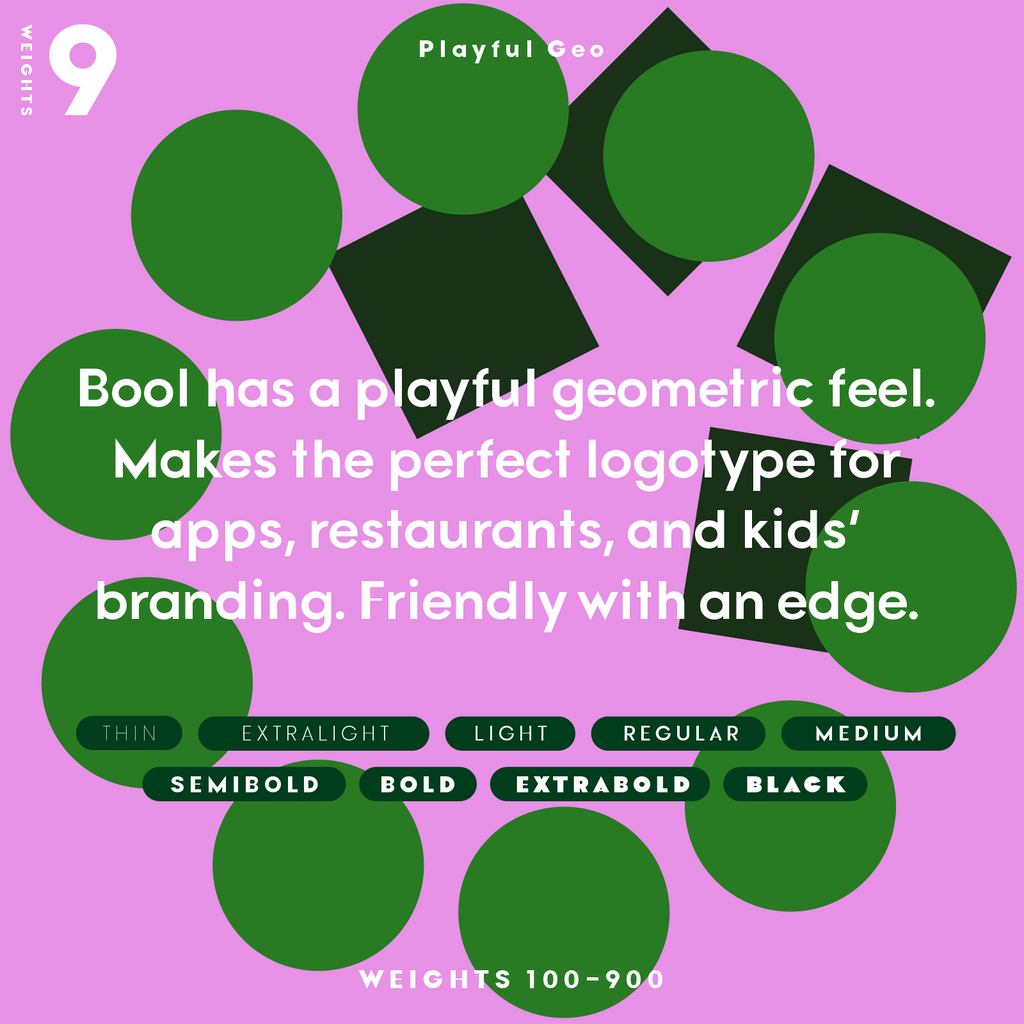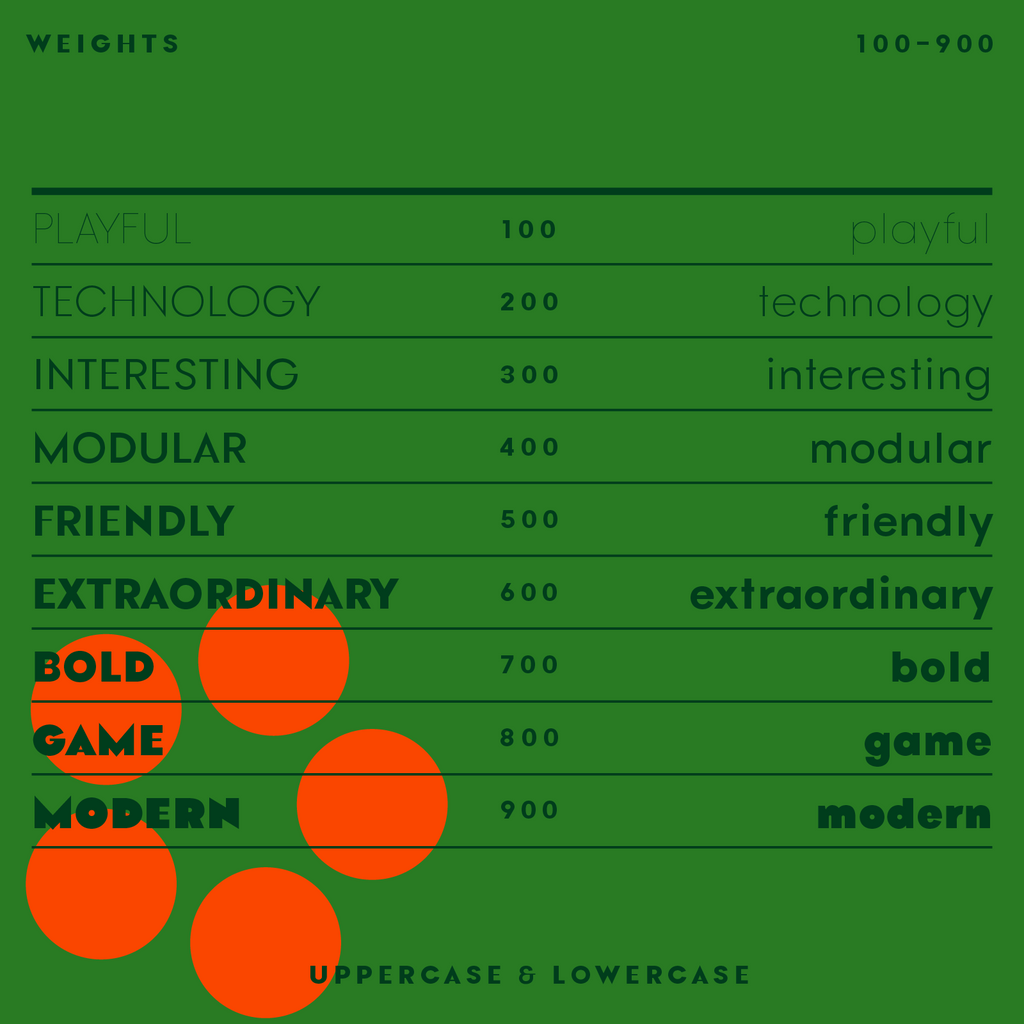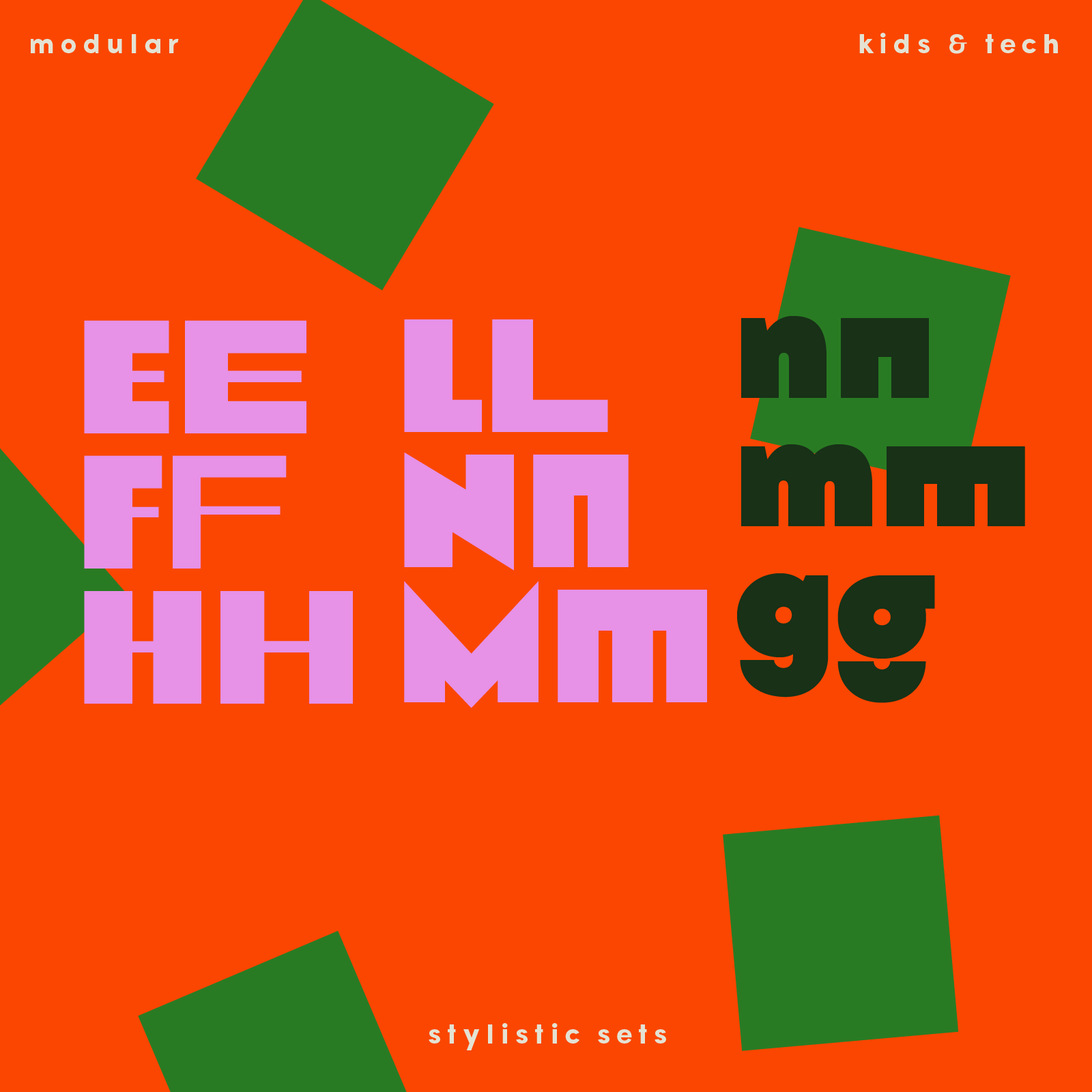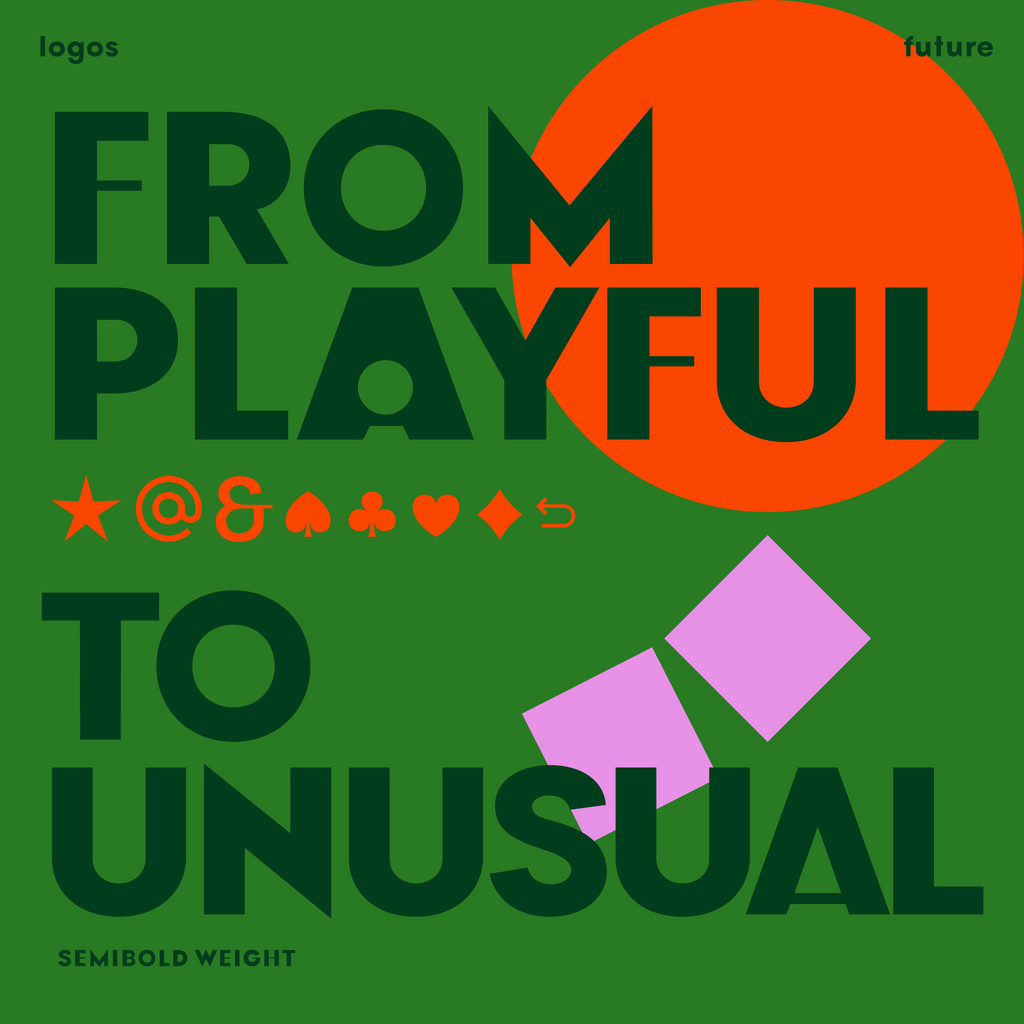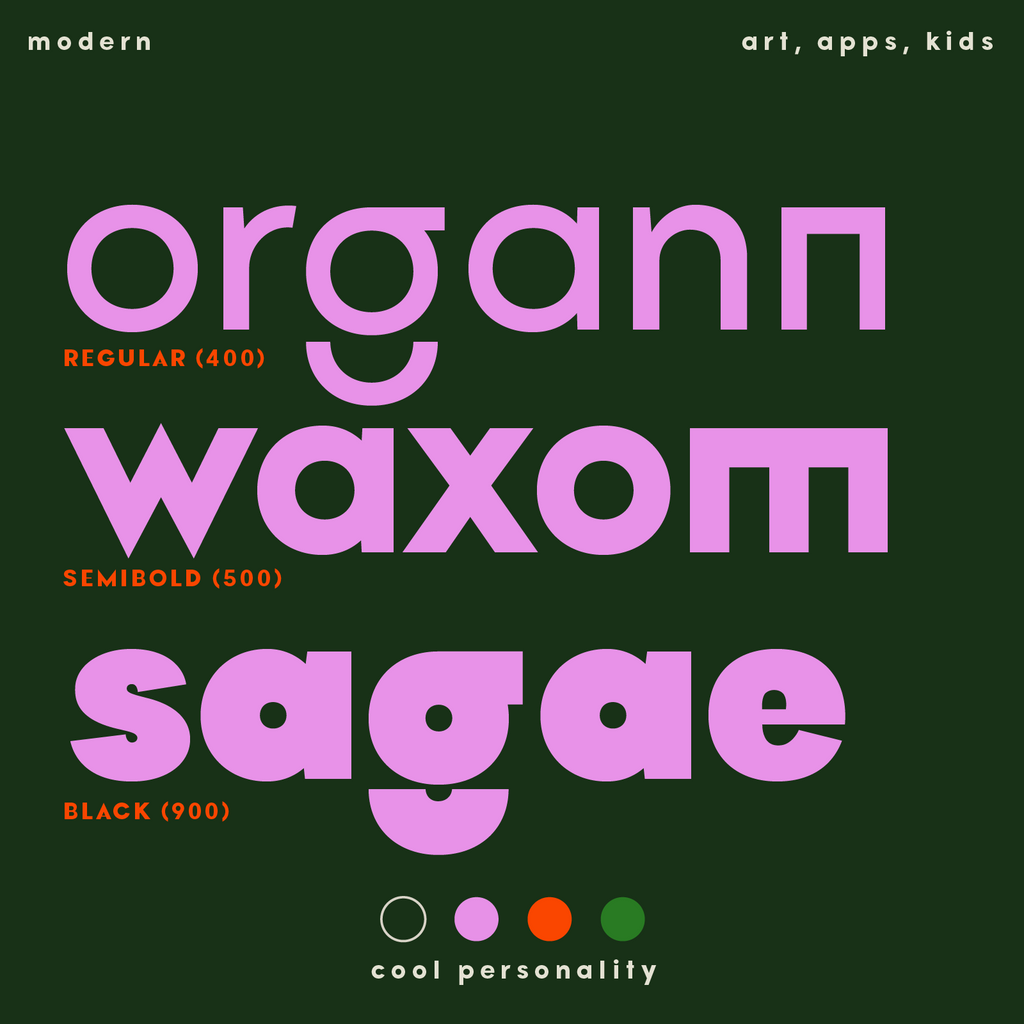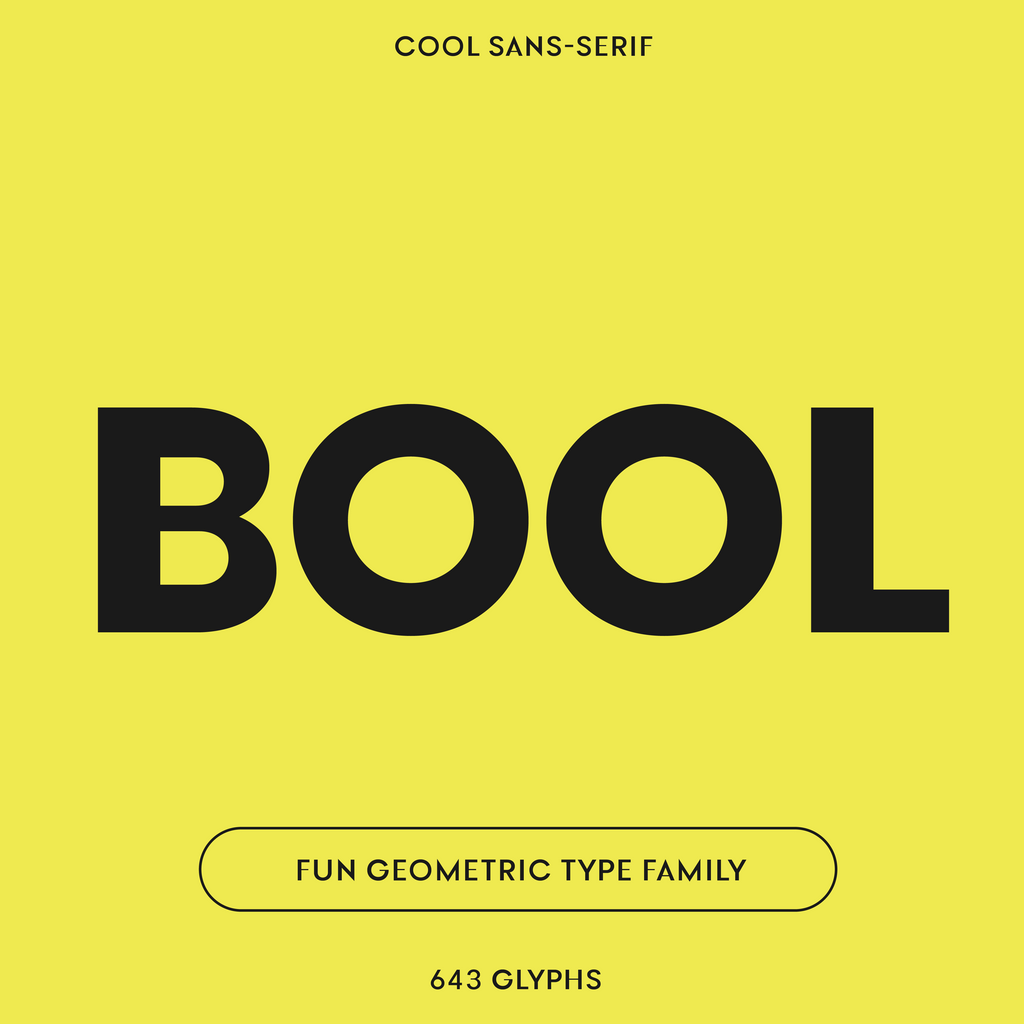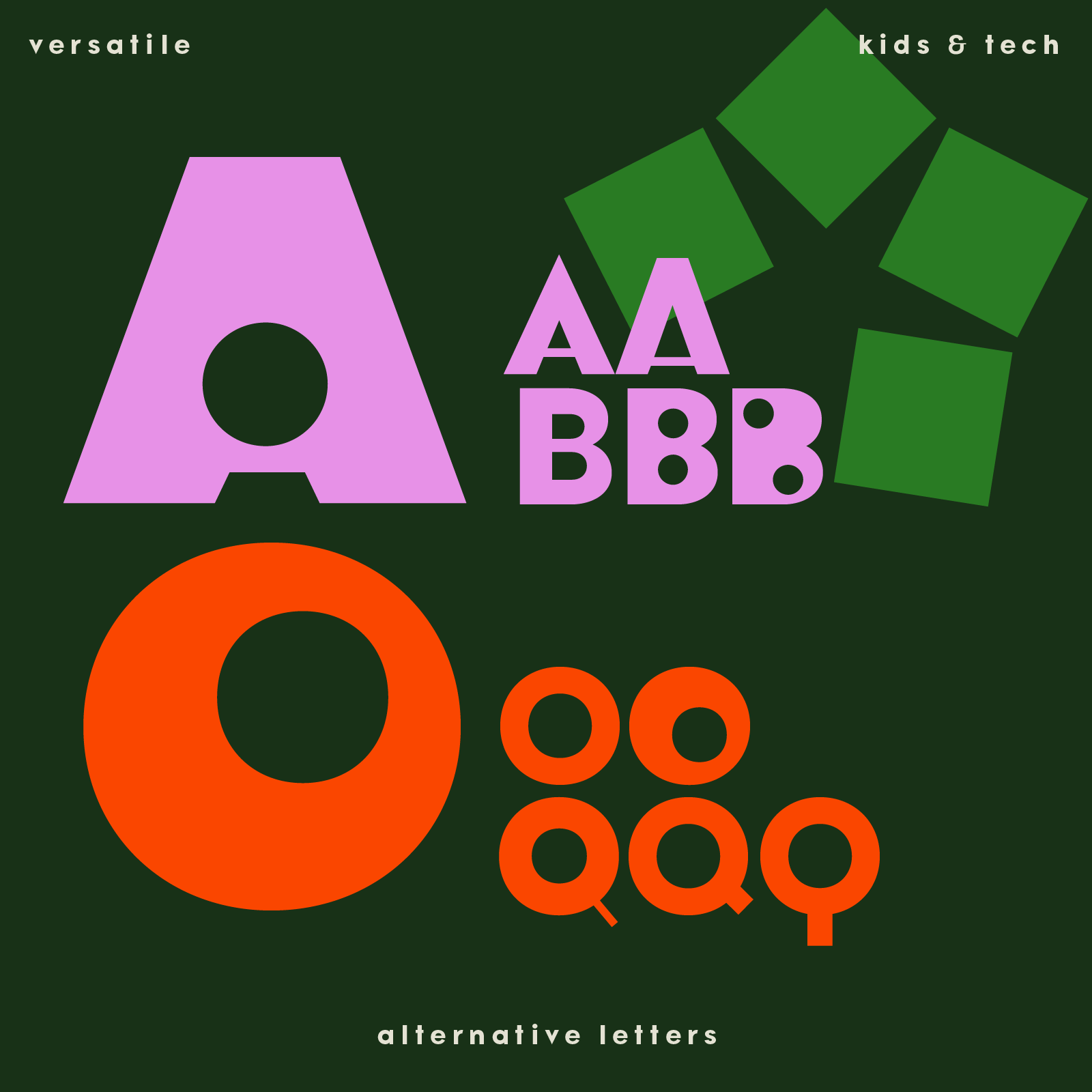
Bauhaus Bool font, playful and geometric
Bauhaus Bool—Playful sans-serif font, bold with fun alts
Bool is a font with a playful, geometric feel. Makes the perfect logotype for tech, restaurants, and high-spirited fashion and kids’ branding. Friendly with an edge.
Comes in 9 font weights, from Thin to Black. Select “all 9 styles“ from dropdown.